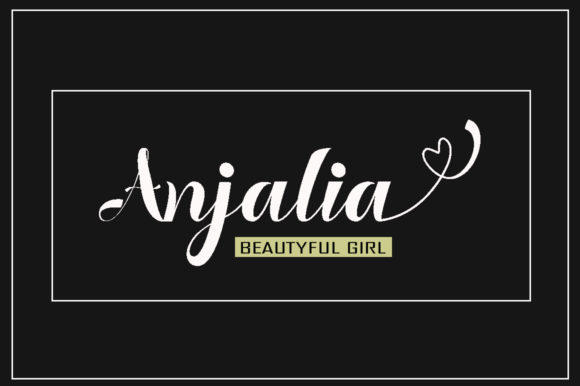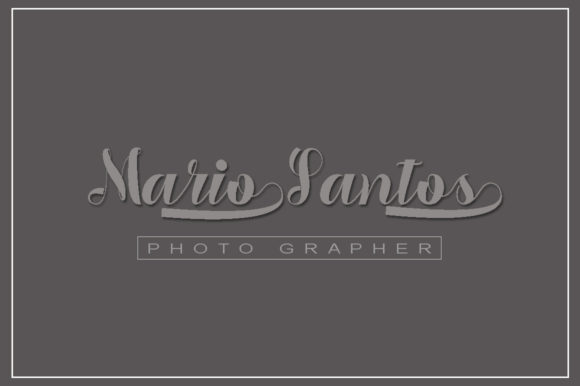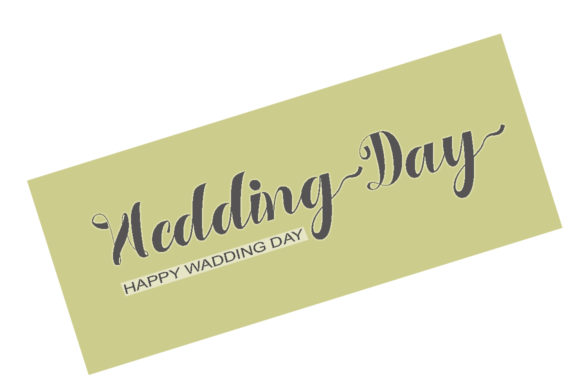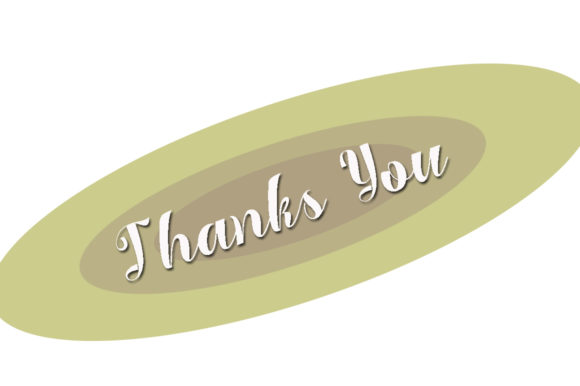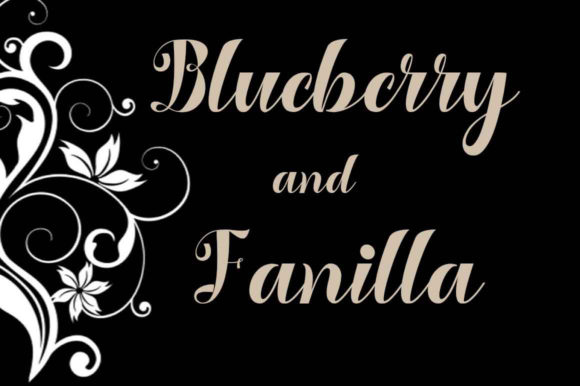
Discover the Elegance of Geurute Font: A Classic and Unique Calligraphy-Inspired Typeface
In the world of typography, few fonts manage to capture the essence of elegance and charm as effectively as Geurute. Inspired by the art of calligraphy, Geurute stands out as a classic and unique font that brings a personal touch to any design project. Whether you’re a designer looking for a sophisticated typeface or a crafter seeking to add a touch of elegance to your creations, Geurute is sure to inspire.
The Inspiration Behind Geurute
Geurute’s design is deeply rooted in the tradition of calligraphy, an art form that has been revered for centuries for its beauty and expressiveness. Calligraphy, with its flowing lines and intricate letterforms, has always been a source of inspiration for typographers and designers. Geurute takes the best elements of calligraphy and translates them into a digital font that is both versatile and visually stunning.
What Makes Geurute Stand Out?
So, what sets Geurute apart from other fonts? Here are a few key features that make Geurute a standout typeface:
• Elegant Feel: Geurute’s design is characterized by its elegant feel, which is achieved through its smooth lines, balanced proportions, and refined letterforms.
• Classic and Unique: While Geurute is inspired by traditional calligraphy, it also has a unique personality that sets it apart from more traditional typefaces.
• Personal Charm: Geurute has a personal charm that makes it perfect for designers and crafters who want to add a touch of warmth and character to their work.
• Versatility: Geurute is a versatile font that can be used in a wide range of design projects, from logos and branding to packaging and digital media.
Using Geurute in Design Projects
Geurute is an incredibly versatile font that can be used in a variety of design projects. Here are a few ideas to get you started:
• Logos and Branding: Geurute’s elegant feel and classic design make it perfect for logos and branding projects that require a sophisticated and timeless look.
• Packaging: Add a touch of elegance to your packaging designs with Geurute, which is perfect for product labels, packaging copy, and more.
• Digital Media: Geurute is also well-suited for digital media, including social media graphics, blog posts, and website headers.
• Crafting and DIY: If you’re a crafter or DIY enthusiast, Geurute can add a touch of elegance to your projects, from handmade cards to customized gifts.
Tips for Getting the Most Out of Geurute
Here are a few tips for getting the most out of Geurute:
• Experiment with Font Sizes: Geurute looks great at a variety of font sizes, so don’t be afraid to experiment to find the perfect size for your project.
• Pair with Other Fonts: Geurute pairs well with a variety of other fonts, so try combining it with other typefaces to create a unique look.
• Play with Color: Geurute looks great in a variety of colors, so don’t be afraid to experiment with different color schemes to find the perfect look for your project.
Geurute is a classic and unique font that is sure to inspire designers and crafters alike. With its elegant feel, personal charm, and versatility, Geurute is the perfect choice for any design project that requires a touch of sophistication and elegance. Whether you’re looking to create a stunning logo, elegant packaging, or beautiful digital media, Geurute is the perfect tool for the job.